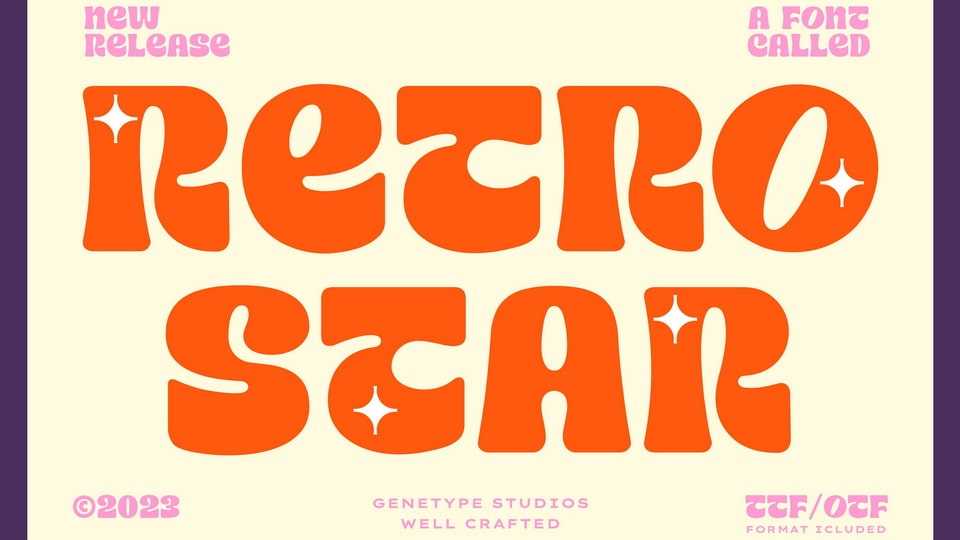
Download Retro Star font, a vintage-themed typeface that oozes old-world charm. Radiating a sense of nostalgia, this typeface takes you back to the elegance pop from days gone by.
Designer: Genetypeco